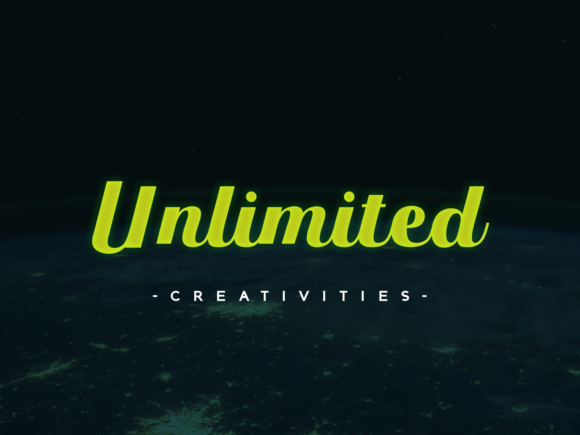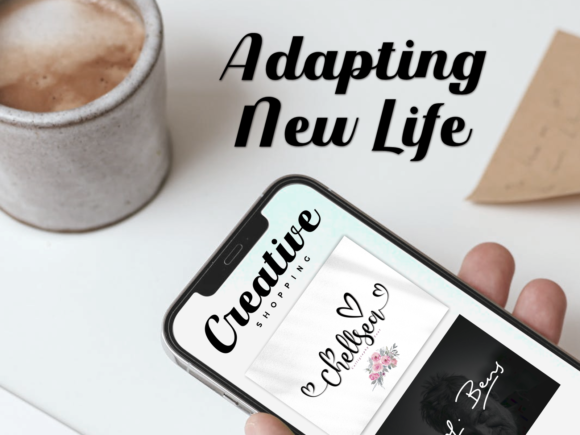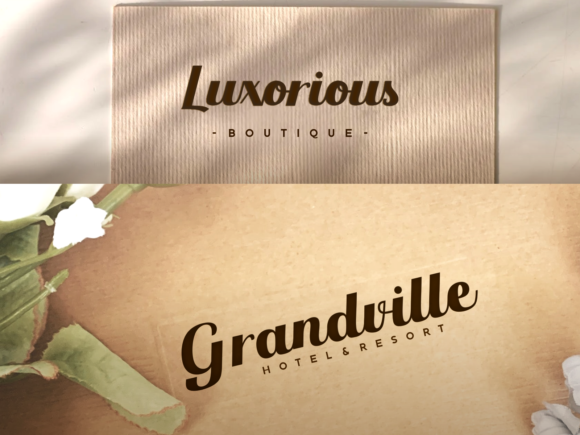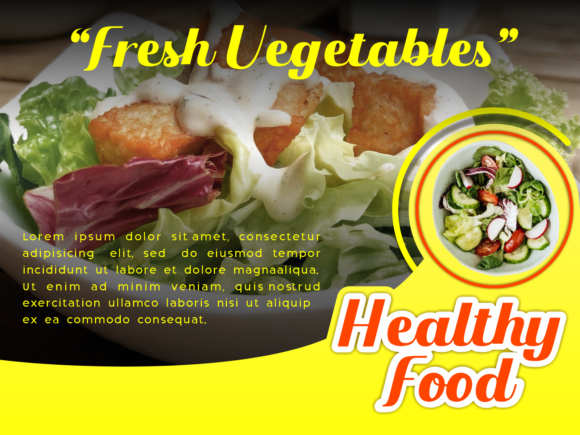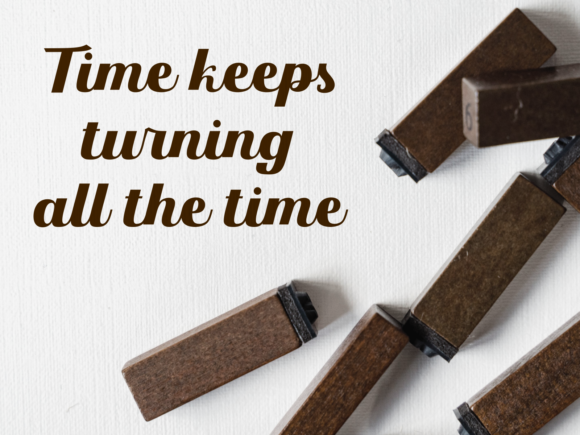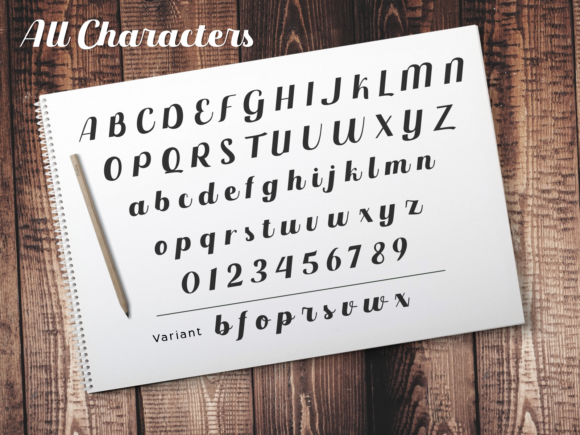
Creatifitas Font: Elevate Your Designs with Elegance and Sophistication
In the world of typography, a well-crafted font can make all the difference in elevating your design from ordinary to extraordinary. For designers and crafters seeking to add a touch of elegance and sophistication to their projects, Creatifitas Font is an exceptional choice. This beautiful, handwritten font boasts delicate swashes and a refined aesthetic that is sure to captivate audiences and leave a lasting impression.
The Beauty of Creatifitas Font
Creatifitas Font is a masterpiece of typographic design, characterized by its elegant and exquisite appearance. The font features sweet and delicate swashes that add a touch of whimsy and romance to any design. Its original look is versatile and adaptable, making it suitable for a wide range of crafty ideas, from letterheads and titles to stationery and more.
Key Features of Creatifitas Font
- Elegant and Exquisite Design: Creatifitas Font boasts a refined and sophisticated aesthetic that is perfect for designs that require a touch of luxury and elegance.
- Sweet and Delicate Swashes: The font’s delicate swashes add a touch of whimsy and romance to any design, making it ideal for projects that require a feminine and elegant touch.
- Versatile and Adaptable: Creatifitas Font is suitable for a wide range of design projects, from letterheads and titles to stationery and more.
- Handwritten with Love: The font’s handwritten nature gives it a personal and unique touch that is sure to make your designs stand out from the crowd.
Uses of Creatifitas Font
Creatifitas Font is a versatile font that can be used in a variety of design projects, including:
- Letterheads and Titles: Add a touch of elegance and sophistication to your letterheads and titles with Creatifitas Font.
- Stationery: Create beautiful and unique stationery designs that are sure to impress with Creatifitas Font.
- Branding and Packaging: Use Creatifitas Font to create elegant and sophisticated branding and packaging designs that reflect your brand’s personality.
- Wedding and Event Designs: Add a touch of romance and whimsy to your wedding and event designs with Creatifitas Font.
Why Choose Creatifitas Font?
With so many fonts available, why choose Creatifitas Font? Here are just a few reasons why this font stands out from the crowd:
- Unique and Original Design: Creatifitas Font boasts a unique and original design that is sure to make your designs stand out from the crowd.
- Elegant and Sophisticated Aesthetic: The font’s elegant and sophisticated aesthetic makes it perfect for designs that require a touch of luxury and refinement.
- Easy to Read and Versatile: Creatifitas Font is easy to read and versatile, making it suitable for a wide range of design projects.
In conclusion, Creatifitas Font is an exceptional choice for designers and crafters seeking to add a touch of elegance and sophistication to their designs. With its beautiful, handwritten design and delicate swashes, this font is sure to captivate audiences and leave a lasting impression. Whether you’re creating letterheads, titles, stationery, or more, Creatifitas Font is a versatile and adaptable font that is sure to elevate your designs to new heights.